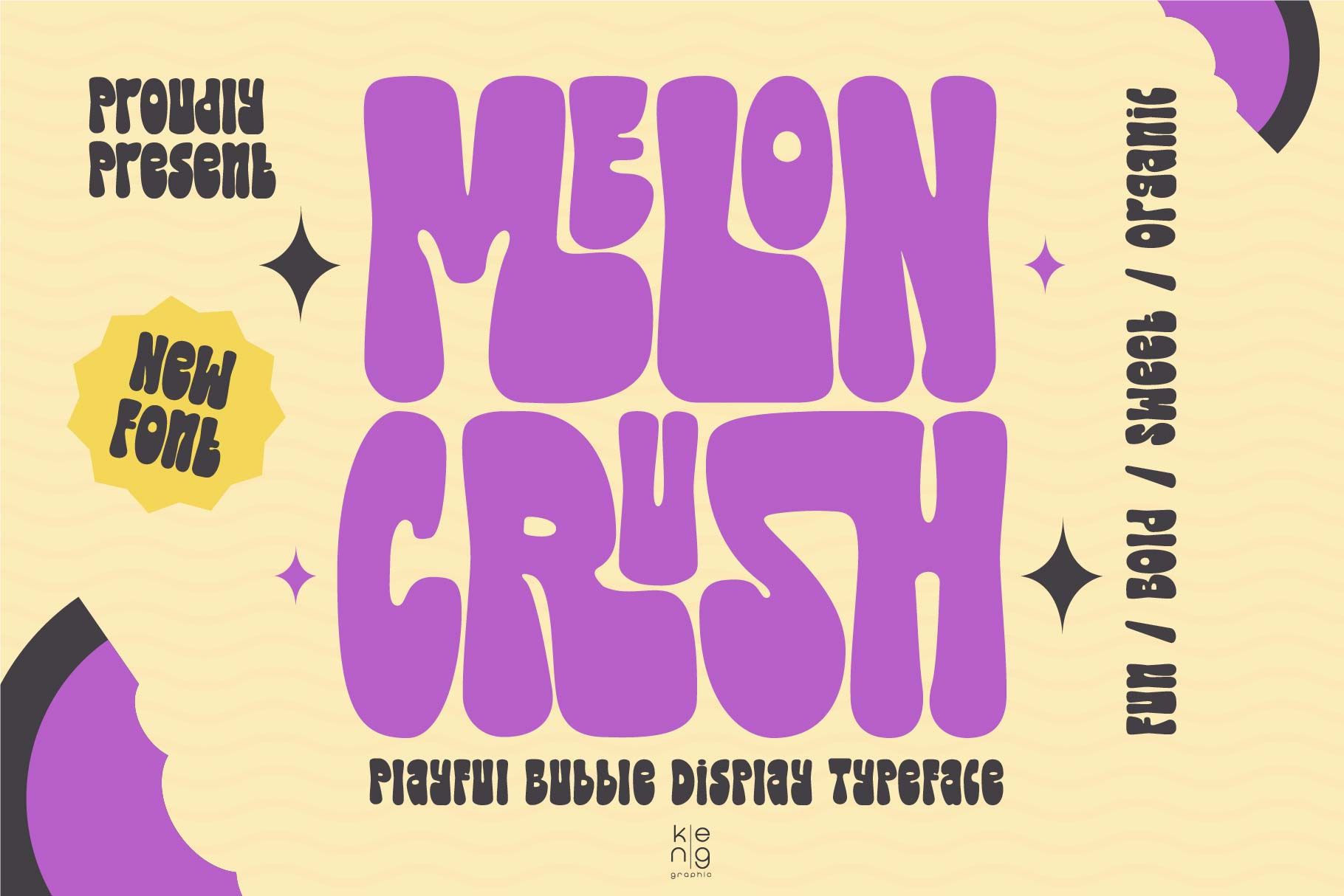
Melon Crush Font
Introducing Melon Crush; a vivid and bold display font radiating delightful charm. Inspired by nostalgic retro styles intertwined with the mouthwatering temptation of zesty fruits, it makes the perfect selection for creating eye-catching titles, vivacious packaging designs, communicative posters, ornamental stickers and beyond. Add a dash of joy to every project with the enchanting aura of Melon Crush!